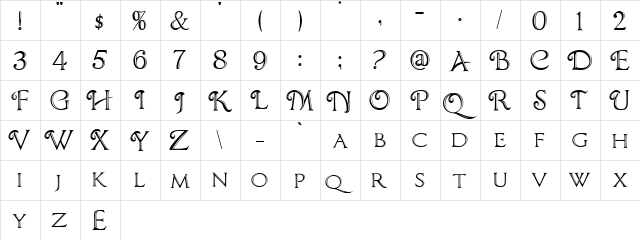
ChocolateBoxDecorative Regular
Design Context for ChocolateBoxDecorative Typeface
ChocolateBoxDecorative brings ornamental detail and strong personality to headlines and identities, where visual impact matters more than quiet functionality.
Font Pairing: Pair with a clean neutral sans-serif for body copy to let ChocolateBoxDecorative's character lead without overwhelming the composition.
Pro Tip: Use ChocolateBoxDecorative exclusively at display sizes — it was designed to be seen, not read at length. Let a neutral companion handle body copy.